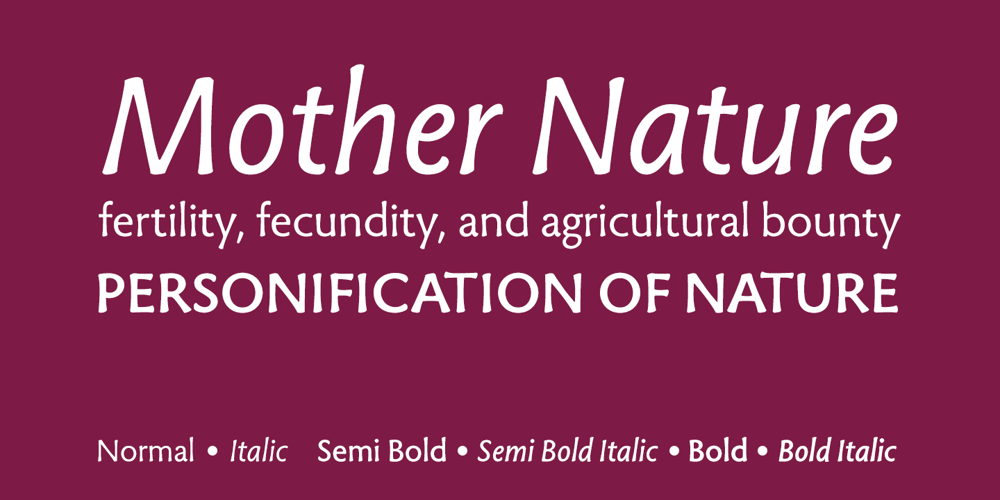
Tuff
Tuff font
Tuff Font Family was designed by Sumner Stone and published by Stone Type Foundry. Tuff contains 6 styles and family package options. Tuff began with Magma. Set as text, they appear to be similar and are quite comfortable as typographic companions. The child-safe softness of Tuff owes something to the letterforms of the earliest extant Greek Manuscript, The Persae by Timotheos in the 4th Century BC. It is beholden to Morris Fuller Benton’s original Souvenir, and its revival by Ed Benguiat. My own Stone Informal was also an influence.